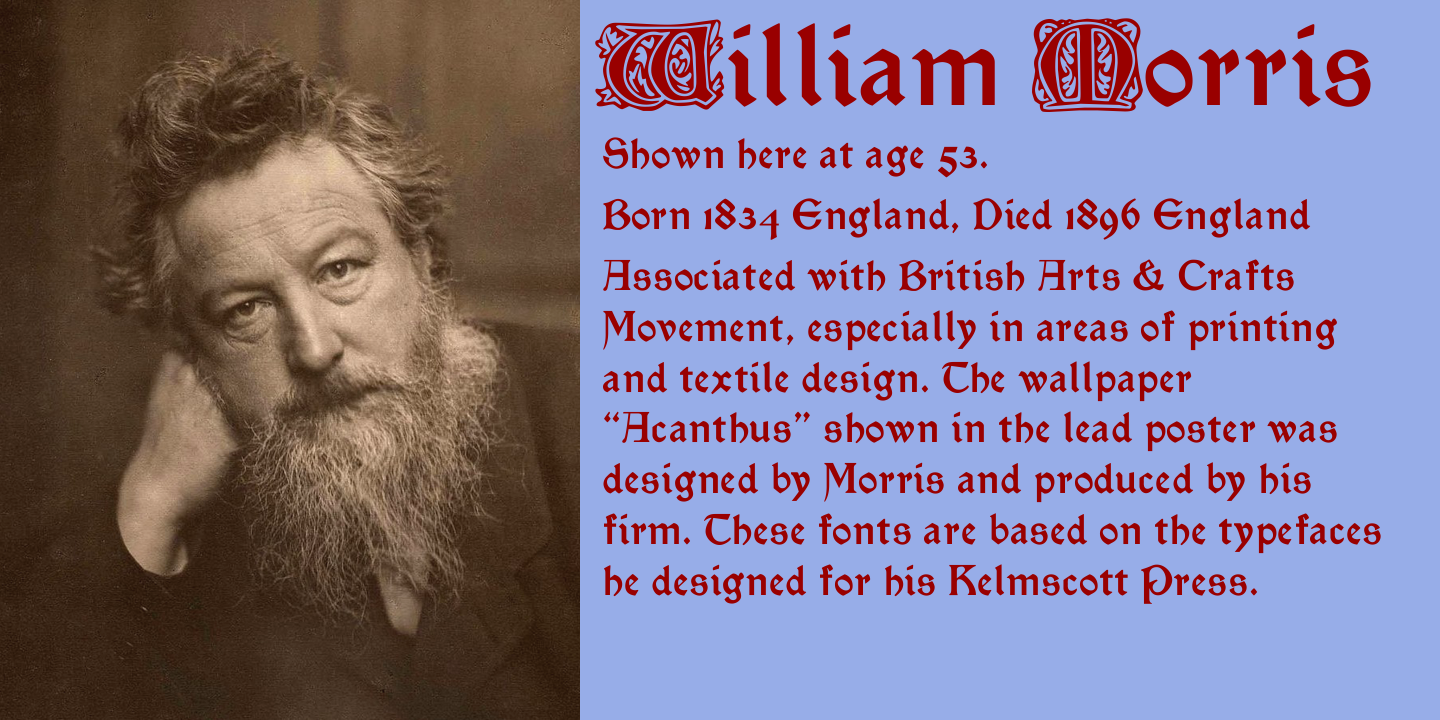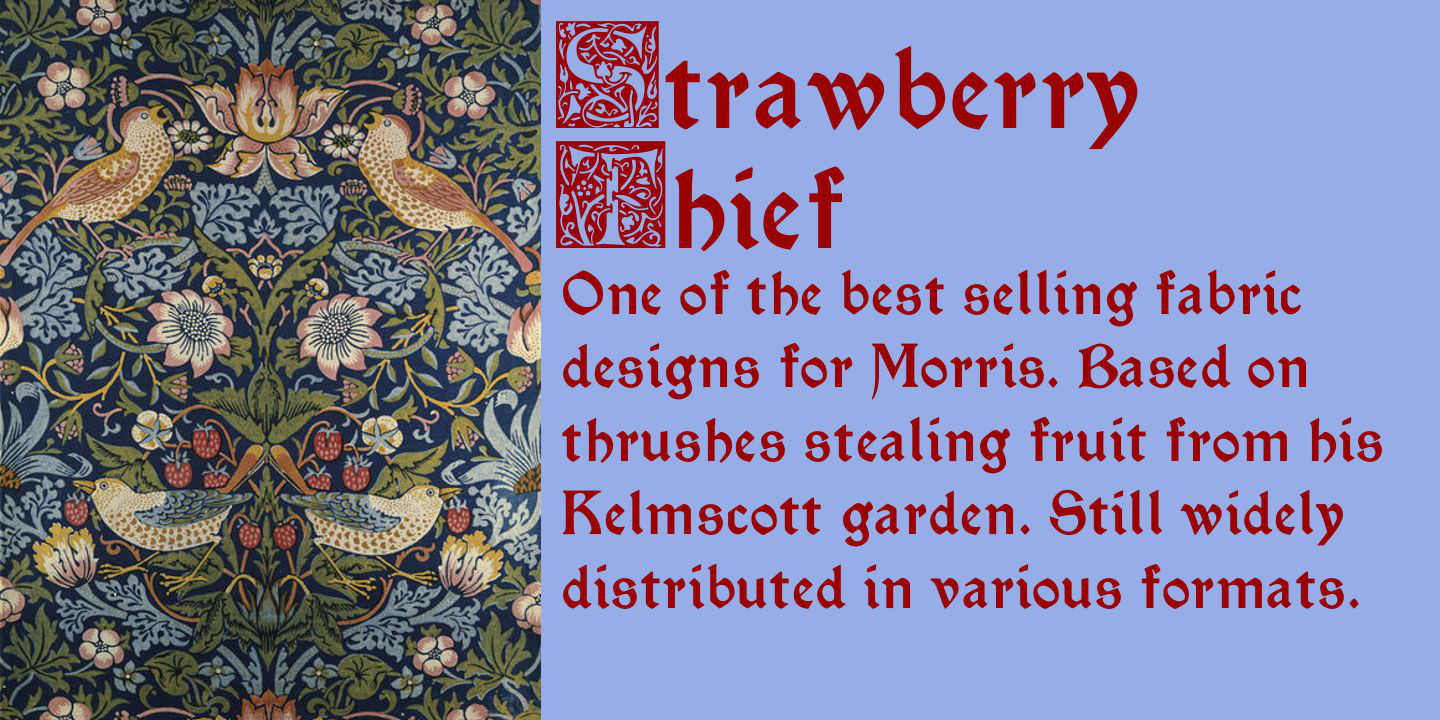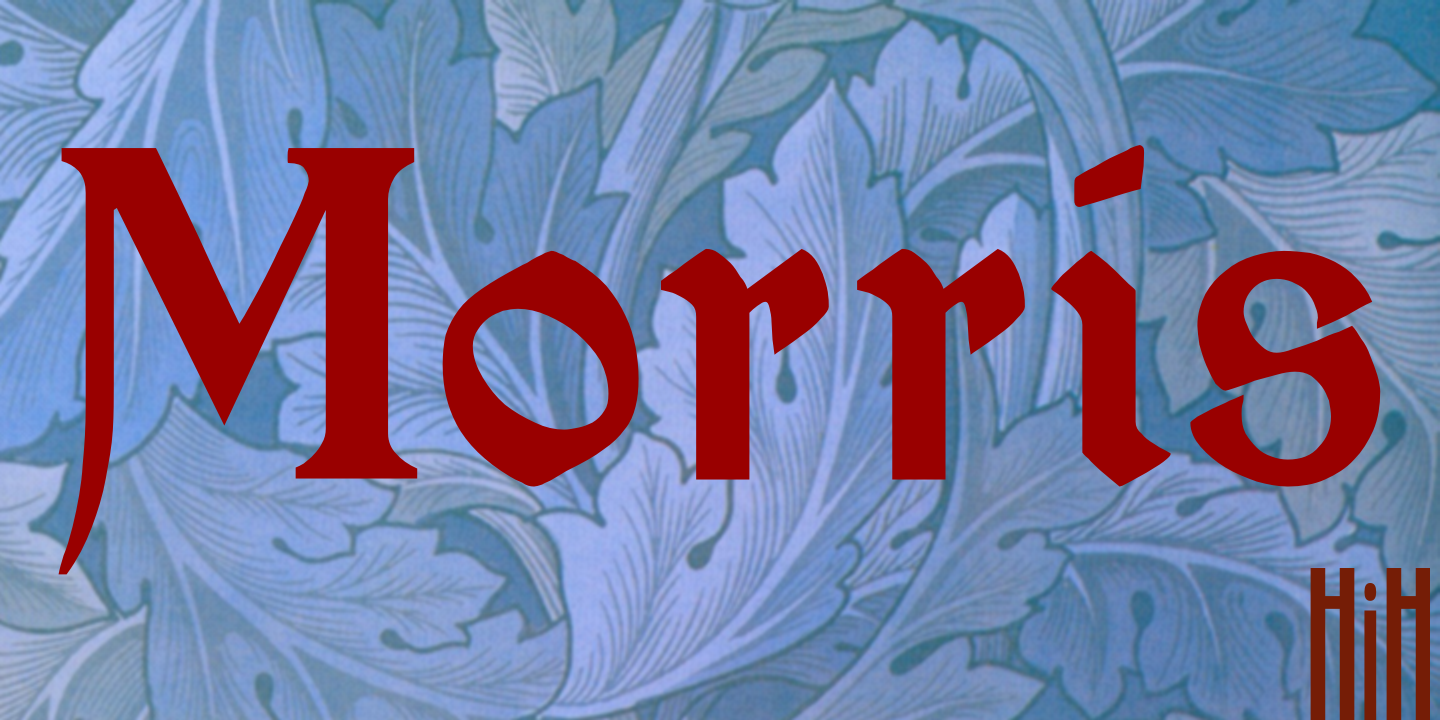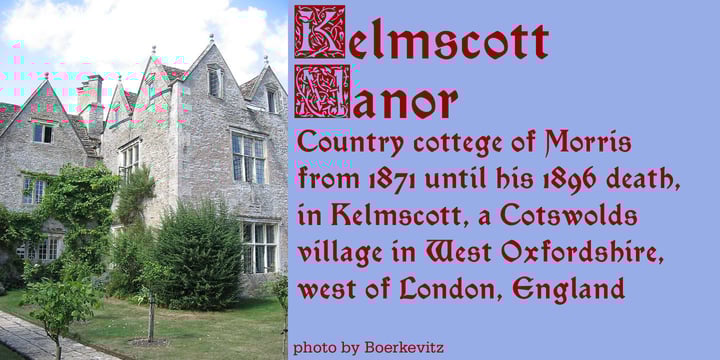
Late nineteenth century English architect, designer and typographer, leader of that revival of medieval form, the Arts and Crafts Movement, and — like Eric Gill — a socialist-craftsman.
In 1891 he set up his Kelmscott Press, with the aim of “producing some [books] which would have a definite aim of beauty, while they should be easy to read and not dazzle the eye.” Referring to books of the fifteenth century, he noted: “they were always beautiful by force of mere typography, even without added ornament, with which many of them are lavishly supplied.” Morris’s books certainly supply the ornament lavishly. Today Kelmscott editions are among the most sought after by collectors.